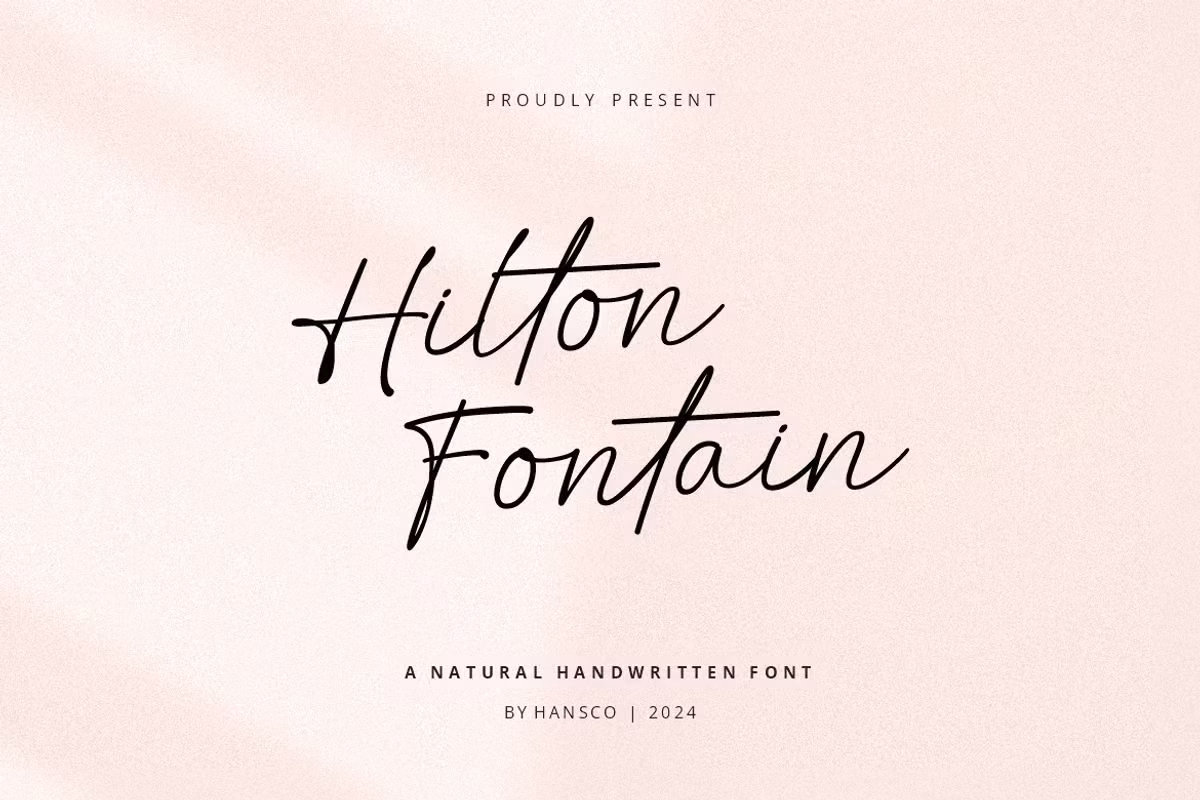
Hilton Fontain | Handwritten Font Free Download
Hilton Fontain | Handwritten Font Free Download is an elegant and flowing script typeface that captures the authenticity of hand lettering. Perfect for personal branding, wedding designs, social media graphics, and creative invitations, this font adds a soft, human touch to any project. Please note that you must purchase this font for commercial use, but it is available as a free download for testing purposes. Bring warmth and personality to your designs with Hilton Fontain | Handwritten Font Free Download, and explore the charm of handwritten style in every curve and stroke.